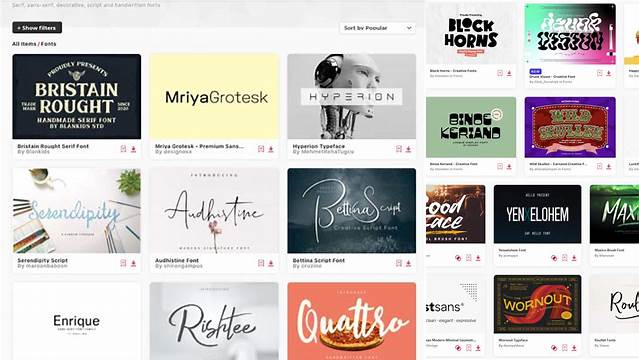
Envato Elements Fonts: A Designer's Guide To Typography
Are you ready to elevate your design projects with captivating fonts? Look no further, guys! Envato Elements offers a vast library of fonts that can transform your creative vision into a stunning reality. Whether you're a seasoned designer or just starting, understanding the world of Envato Elements fonts is crucial for crafting impactful visuals. This article will dive deep into the realm of Envato Elements fonts, exploring their diverse collection, licensing, and how to effectively use them in your projects. So, let's get started and unlock the power of typography!
What is Envato Elements?
Exploring the Vast Font Collection on Envato Elements
The true beauty of Envato Elements lies in its unparalleled font collection. You'll find a diverse range of typography styles, from classic and elegant to modern and quirky. Whatever your project demands, you're sure to discover the perfect font to match your vision. Navigating this extensive library can feel daunting at first, but Envato Elements provides robust search filters to help you narrow down your options. You can filter by font type (serif, sans-serif, script, display), style (bold, italic, condensed), and even specific characteristics like vintage, handwritten, or futuristic. This granular level of control makes it easy to pinpoint the fonts that align with your design aesthetic. Beyond the sheer number of fonts, the quality is consistently high. Envato Elements partners with talented font designers from around the globe, ensuring that you have access to professionally crafted typefaces. Each font comes with detailed information, including character sets, weights, and language support. This allows you to make informed decisions and choose fonts that are not only visually appealing but also technically sound. The collection is constantly evolving, with new fonts being added regularly. This means you'll always have access to the latest trends and styles. Whether you're looking for a timeless classic or a cutting-edge design, Envato Elements has something for everyone. The breadth of the font library extends beyond traditional typefaces. You'll also find a wide selection of decorative fonts, dingbats, and other typographic elements. These can be used to add personality and flair to your designs, helping you create truly unique and memorable visuals. Imagine crafting a logo with a distinctive script font, or designing a website with a bold and modern sans-serif. With Envato Elements, the possibilities are endless. The font collection is a playground for creativity, inviting you to experiment and push the boundaries of typography. So, dive in and explore – you might just discover your new favorite font!
How to Effectively Use Envato Elements Fonts in Your Projects
Now that you know about the amazing font collection and the straightforward licensing, let's talk about how to effectively use Envato Elements fonts in your projects. Choosing the right font can make or break a design, so it's essential to approach typography with intention and purpose. First, consider the overall tone and message of your project. Are you aiming for elegance and sophistication, or something more playful and energetic? The font you choose should align with these goals. A classic serif font might be perfect for a formal invitation, while a bold sans-serif could be ideal for a modern website headline. Think about readability. A beautiful font is useless if it's difficult to read. Choose fonts that are clear and legible, especially for body text. Avoid overly decorative fonts for large blocks of text, as they can strain the eyes. Experiment with different font pairings. Combining fonts effectively can add depth and visual interest to your designs. A common approach is to pair a serif font with a sans-serif font, creating a harmonious contrast. Use online tools and resources to explore font pairing suggestions and inspiration. Pay attention to font sizes and spacing. The size of your font plays a crucial role in readability and visual hierarchy. Use larger fonts for headings and smaller fonts for body text. Adjust the letter spacing and line height to optimize readability and create a polished look. Don't be afraid to experiment. Envato Elements makes it easy to try out different fonts and see how they look in your designs. Download a few options and play around with them until you find the perfect fit. Remember, typography is an art form. It's about more than just choosing a pretty font; it's about conveying a message and creating an emotional connection with your audience. By mastering the art of typography, you can elevate your designs and make a lasting impression. So, take your time, explore the possibilities, and let the fonts of Envato Elements help you bring your creative vision to life.
Conclusion: Unleash Your Creativity with Envato Elements Fonts
In conclusion, Envato Elements fonts offer a world of possibilities for designers and creatives. With a vast collection, straightforward licensing, and a user-friendly platform, it's a game-changer for anyone seeking high-quality typography. From elegant serifs to modern sans-serifs, you'll find the perfect font to match your vision. By understanding the licensing and learning how to effectively use fonts in your projects, you can elevate your designs and create stunning visuals. But Envato Elements is more than just fonts. It's a comprehensive creative platform that provides access to millions of assets, including graphics, templates, photos, videos, and more. This makes it a one-stop shop for all your design needs. So, if you're ready to unleash your creativity and take your projects to the next level, Envato Elements is the perfect solution. Explore the font collection, experiment with different styles, and discover the power of typography. With Envato Elements, the possibilities are endless. Happy designing, guys!